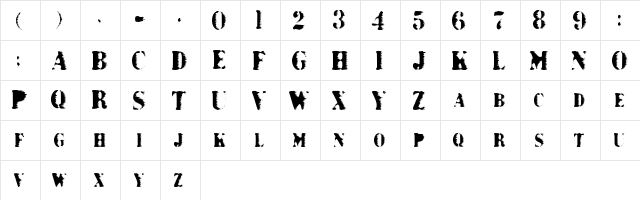
Grunge Bold
Design Context for Grunge Typeface
Grunge embraces imperfection — its rough, textured character adds raw authenticity to designs that want to feel lived-in and unconventional.
Suited to punk-influenced zines, underground music branding, streetwear, and raw, anti-corporate design.
Pro Tip: Pair Grunge with intentionally raw or lo-fi design elements. Fighting against it with overly polished surroundings will undermine its personality.